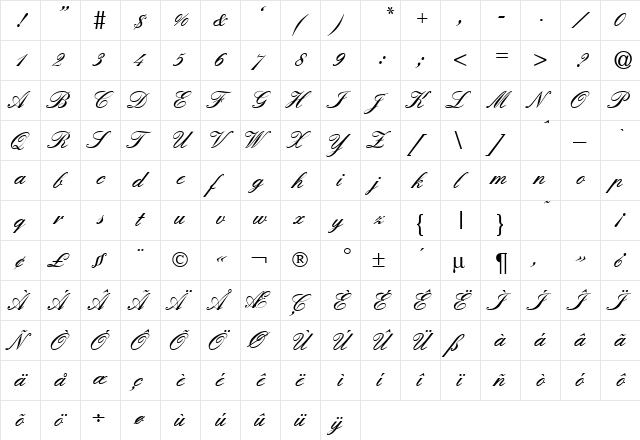
England Hand DB Regular Font Preview
England Hand DB Regular
Design Context for England Hand DB Typeface
England Hand DB flows with the natural rhythm of handwritten lettering, making it ideal for designs that call for warmth and personal expression.
Font Pairing: Combine England Hand DB with a simple geometric sans for maximum contrast — the tension between flowing curves and clean structure is a classic typographic pairing.
Pro Tip: Pair England Hand DB with a clean sans-serif for supporting text. The contrast between fluid script and geometric structure creates an elegant typographic hierarchy.